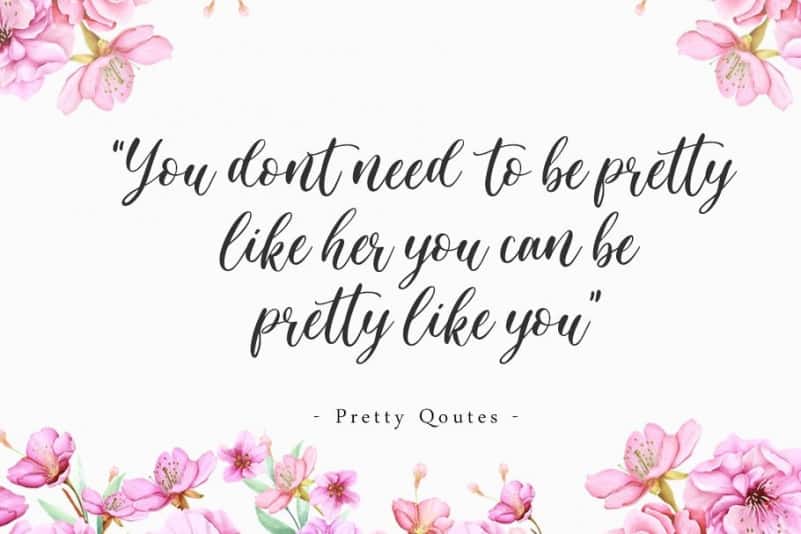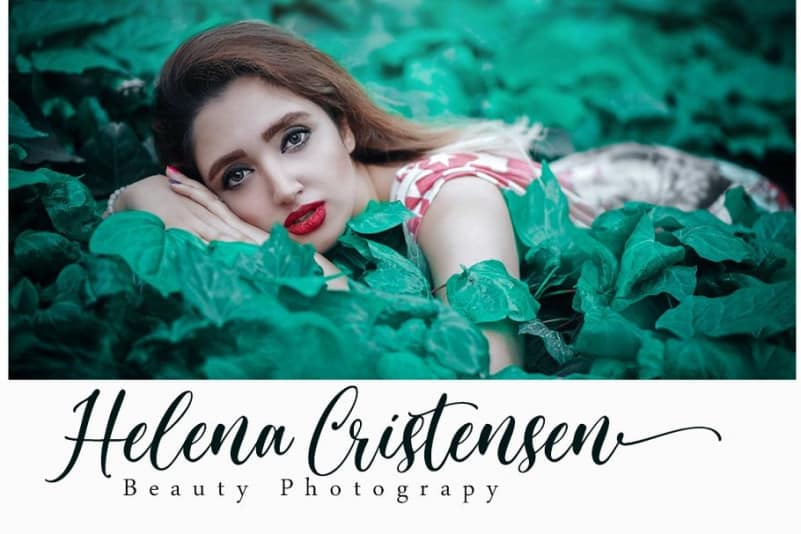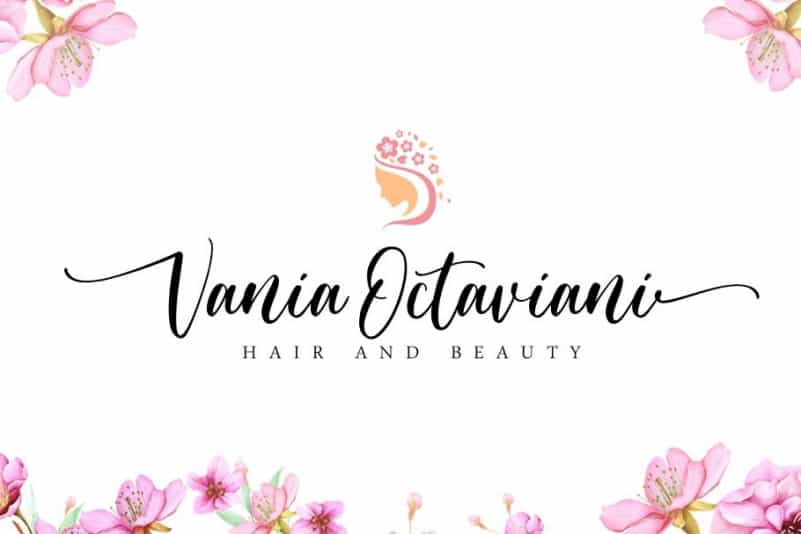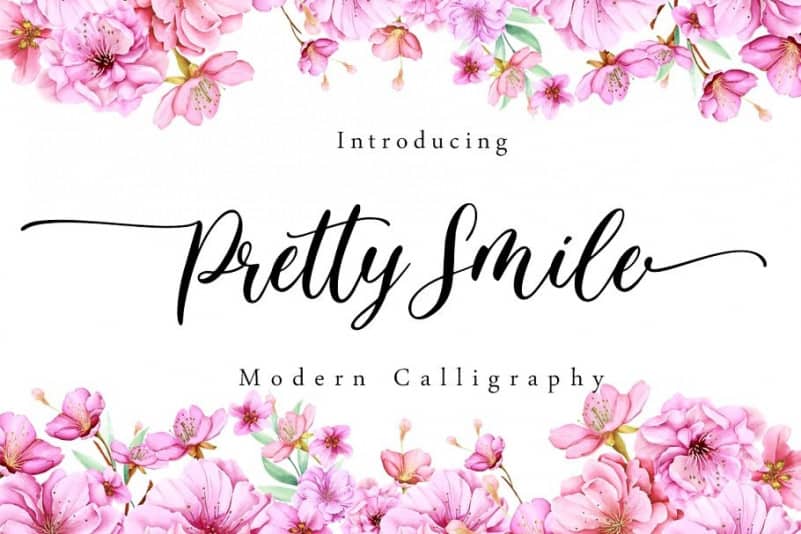
Pretty Smile Calligraphy Font
Introducing the new modern typeface font, Pretty Smile Calligraphy Font! A beautiful calligraphy font. It’s designed and shared by Sronstudio. It is perfectly suited for a wide variety of projects, as to signature, stationery, logo, wedding, typography quotes, magazine or book cover, website header, clothing, branding, packaging design and more.